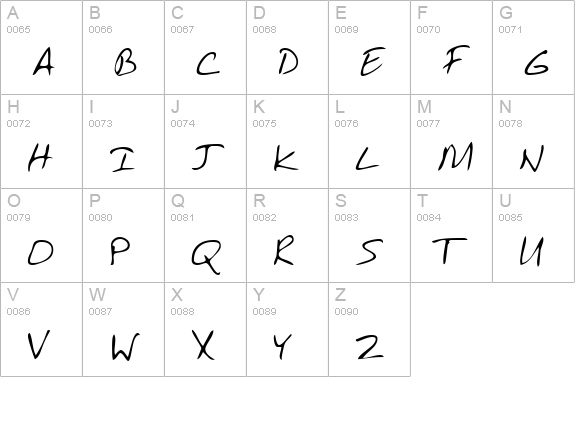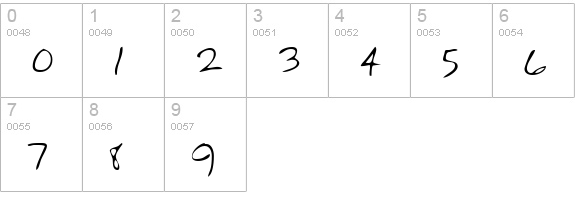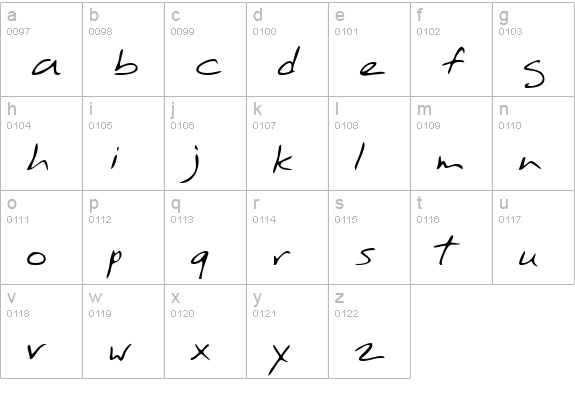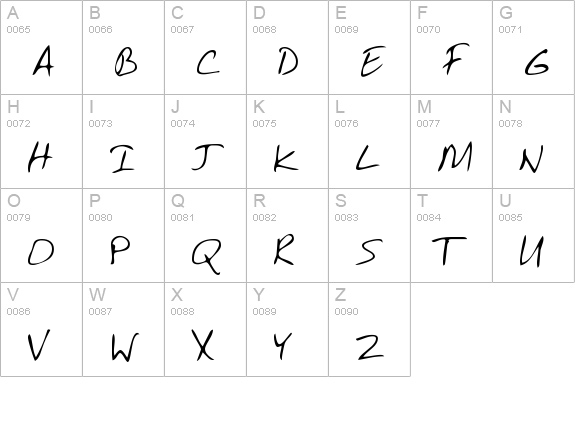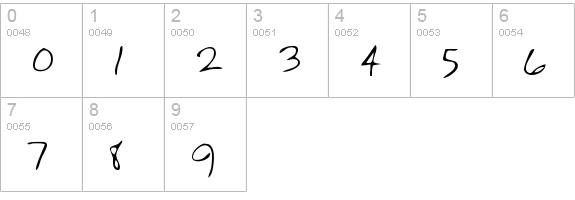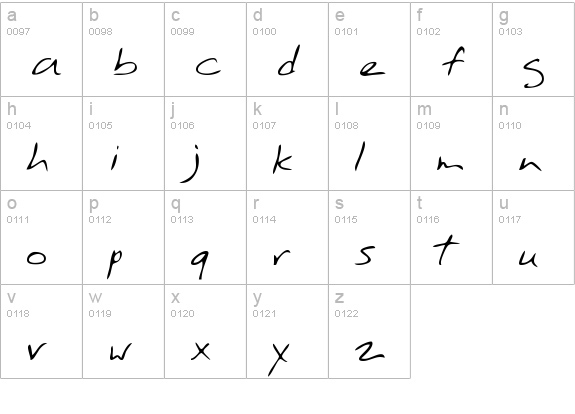
TobysHand Regular is the standard, neutral variant in the TobysHand typeface family \xE2\x80\x94 well suited to general body text, paragraphs, and standard typographic work.
Introducing TobysHand Regular, a delightful and whimsical font that will add a touch of elegance and charm to your designs. This font is perfect for any project that requires a playful and handwritten feel. With its carefully crafted brush strokes and natural flow, TobysHand Regular captures the essence of effortless handwriting. But what sets TobysHand Regular apart is that it is not only captivating but also free! Yes, you heard that right. This font is freely available to download at FontsMarket.com. Now you can bring your creative visions to life without breaking the bank. Whether you're working on a personal project or a professional design, TobysHand Regular is here to make your typography stand out. The versatility of TobysHand Regular is truly remarkable. It is suitable for various design purposes, such as logos, branding, packaging, invitations, and more. Its legibility and unique character will instantly draw attention and leave a lasting impression on your audience. Created with meticulous attention to detail, TobysHand Regular offers a wide range of characters and ligatures, providing you with endless possibilities to create visually stunning compositions. It effortlessly adapts to different styles and themes, allowing you to customize and personalize your designs with ease. Whether you're a seasoned designer or just starting on your creative journey, TobysHand Regular is the perfect addition to your font collection. Its versatility, elegance, and the fact that it can be freely downloaded at FontsMarket.com make it an invaluable asset for any project. So why wait? Download TobysHand Regular now and let your creativity soar to new heights. Unleash the power of this captivating font and watch your designs come to life with a touch of elegance and whimsy.